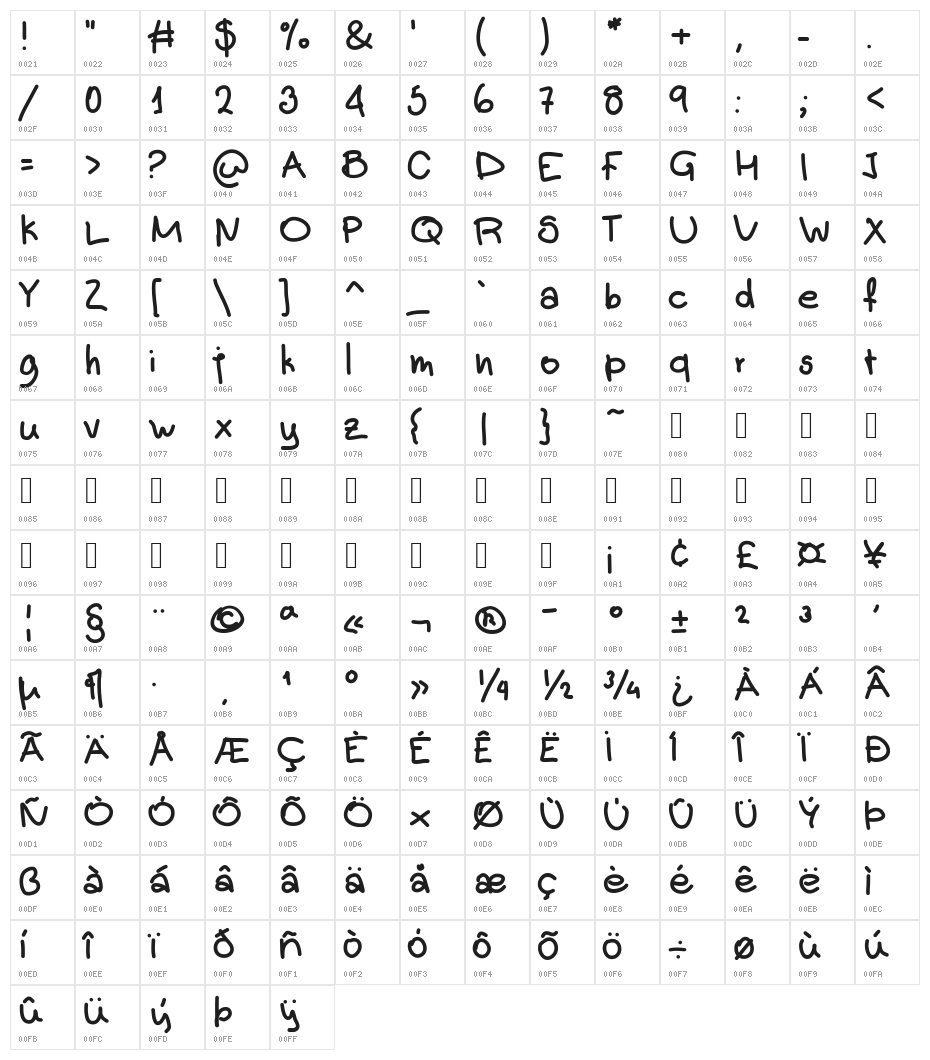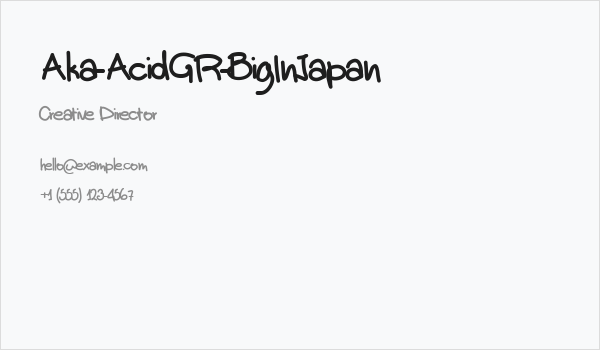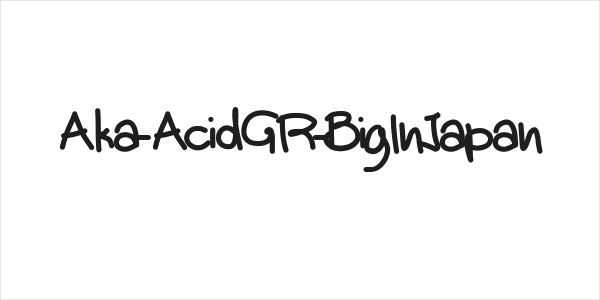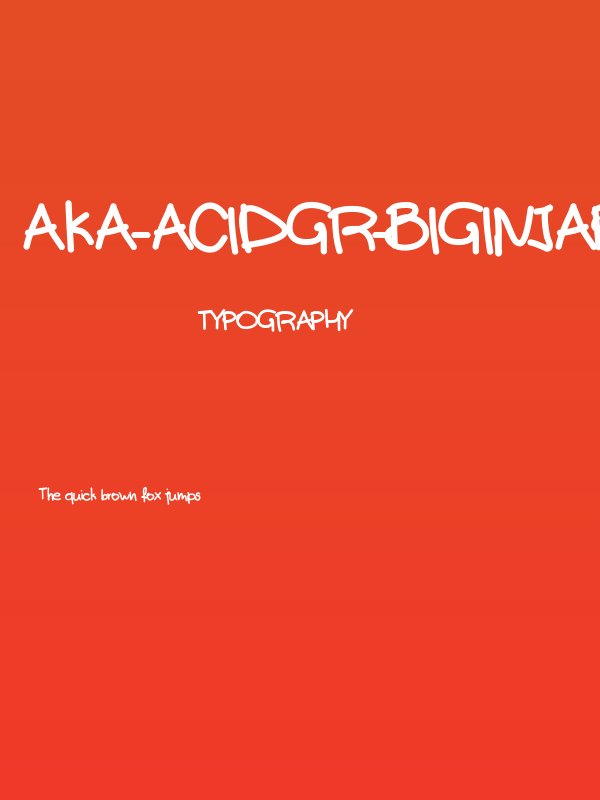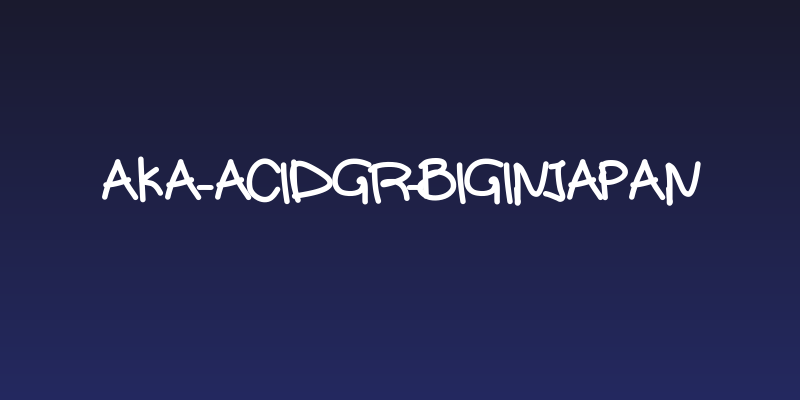
Aka-AcidGR-BigInJapan Font
Aka-AcidGR-BigInJapan Description
This font exudes a playful and energetic vibe, characterized by its bold, rounded strokes and slightly irregular baseline, giving it a handwritten feel. The letters are large and expressive, with a casual, almost graffiti-like style. The uppercase and lowercase letters maintain a consistent visual weight, while the numbers and special characters are equally bold and dynamic. The overall appearance is informal and lively, making it suitable for projects that require a fun and approachable aesthetic.
| Proposed Projects | Ideal for children's books, posters, comic strips, and branding that requires a fun and energetic touch. |